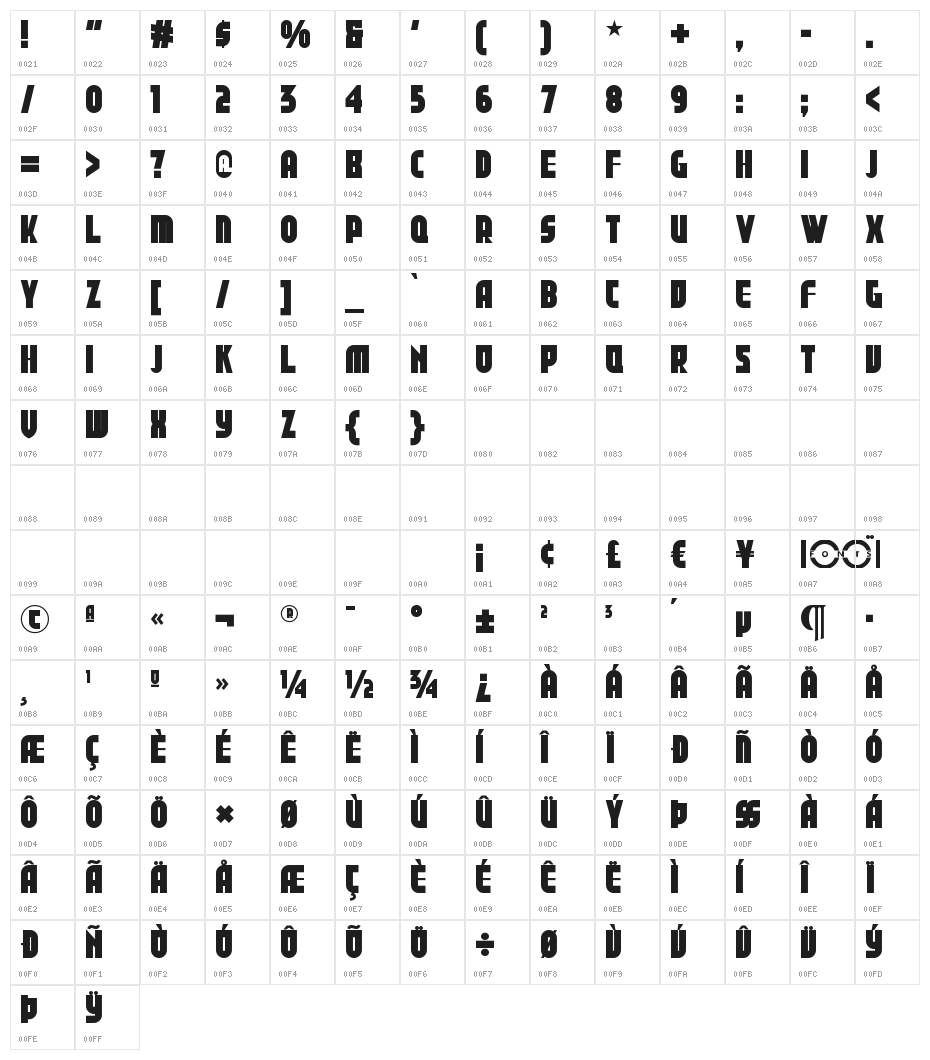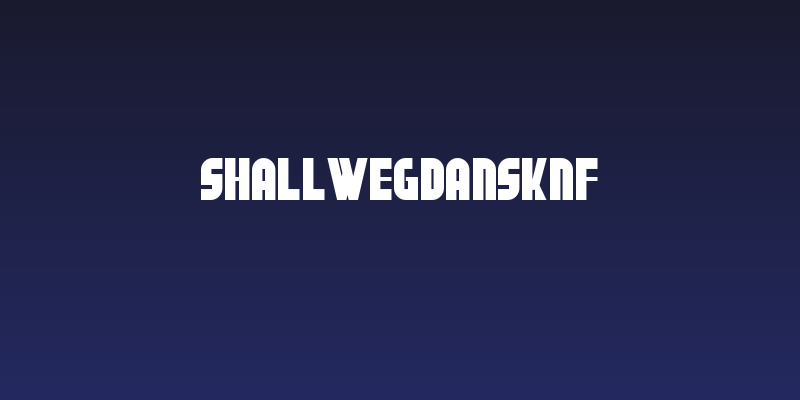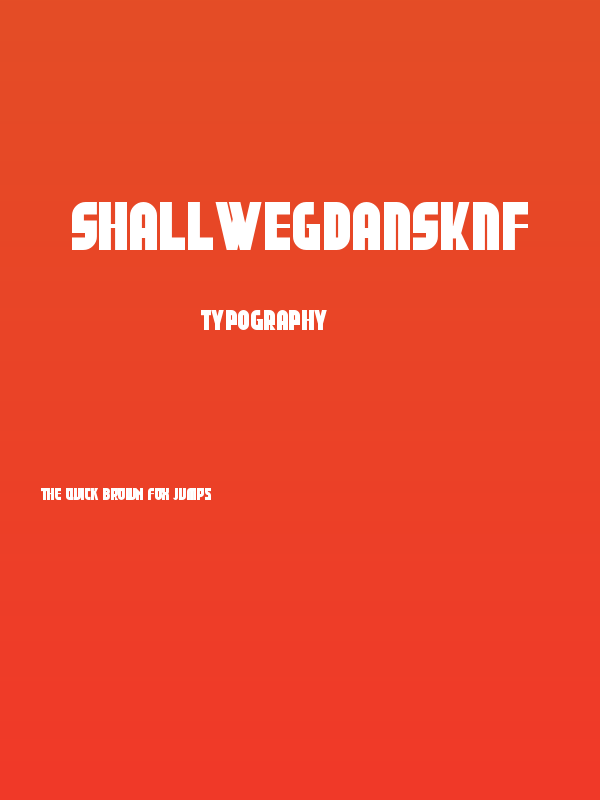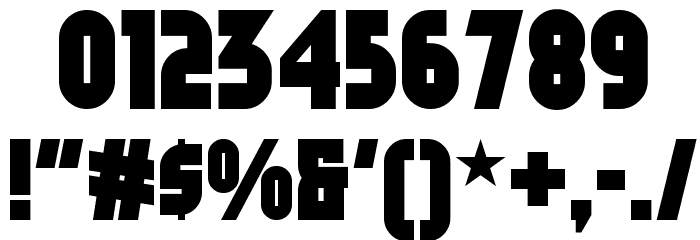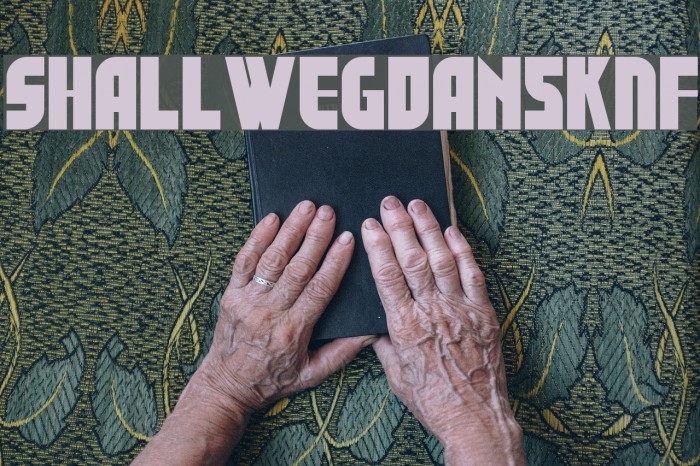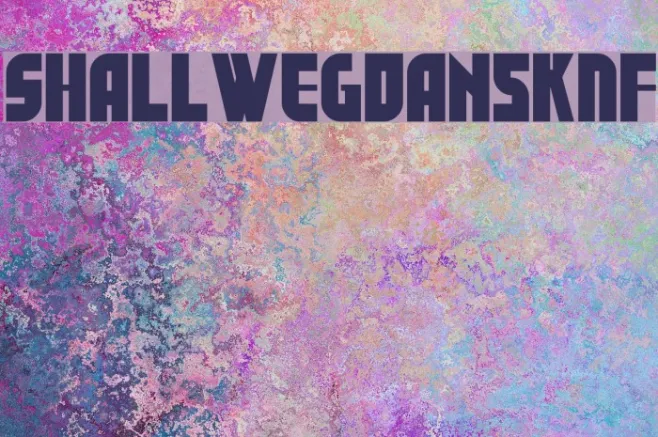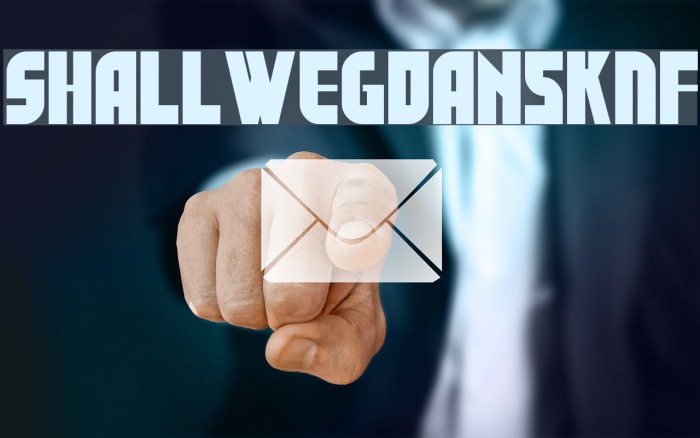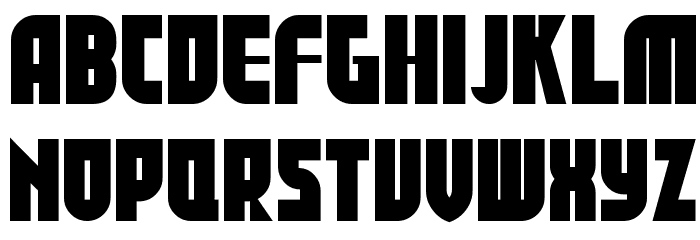
ShallWeGdanskNF Font
ShallWeGdanskNF Description
This font features bold, geometric letterforms with a strong presence. The characters are constructed with thick, uniform strokes, giving them a robust and impactful appearance. The angular design and sharp edges contribute to a modern and industrial feel, making it suitable for attention-grabbing headlines and displays. The uppercase and lowercase letters maintain a consistent style, ensuring readability while adding a unique flair. The numerals and special characters are designed to match the boldness of the alphabet, providing a cohesive look across all elements.
| Proposed Projects | Ideal for posters, logos, branding, and any project requiring a strong visual impact. |